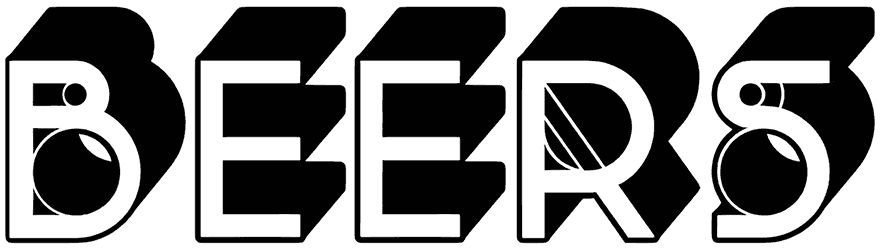
Beers Font
The standout of the Beers is in its thickness; notice how, on the back of each lettering, the 3D font style attempts to show off, and also how powerfully it differs from others despite leaving out lowercase letters and numbers.